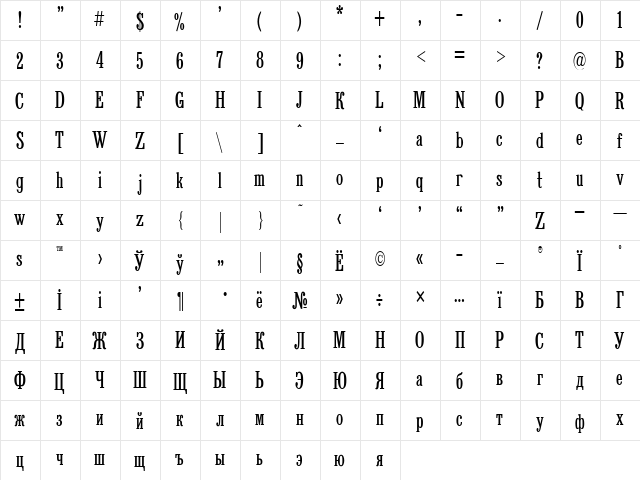
Bruskovaya Compressed Plain
Design Context for Bruskovaya Compressed Typeface
Bruskovaya Compressed is a composed and adaptable typeface that performs quietly and consistently across a wide range of design contexts.
Pro Tip: Use Bruskovaya Compressed in both headline and body roles to test its range before committing to a single application.